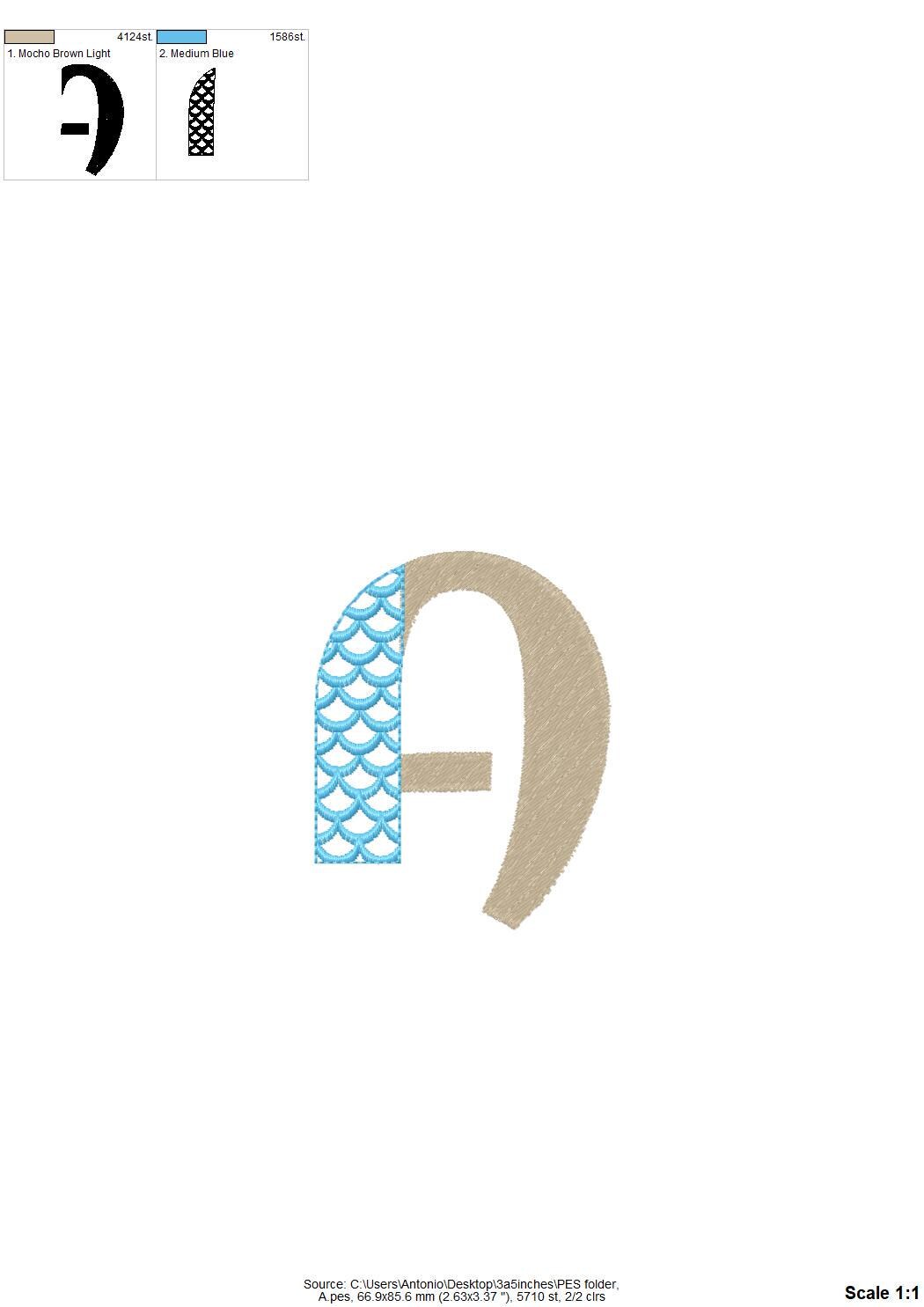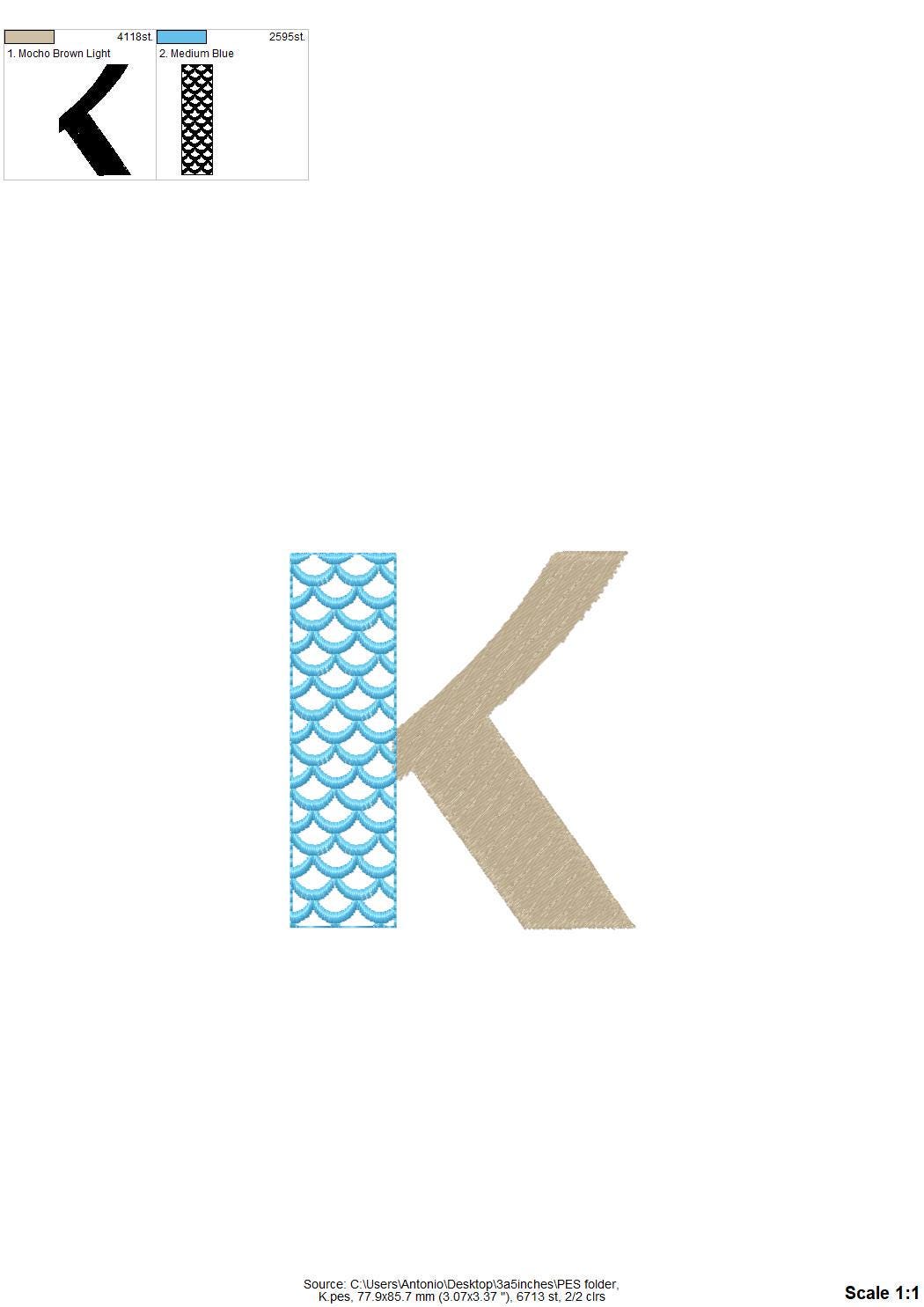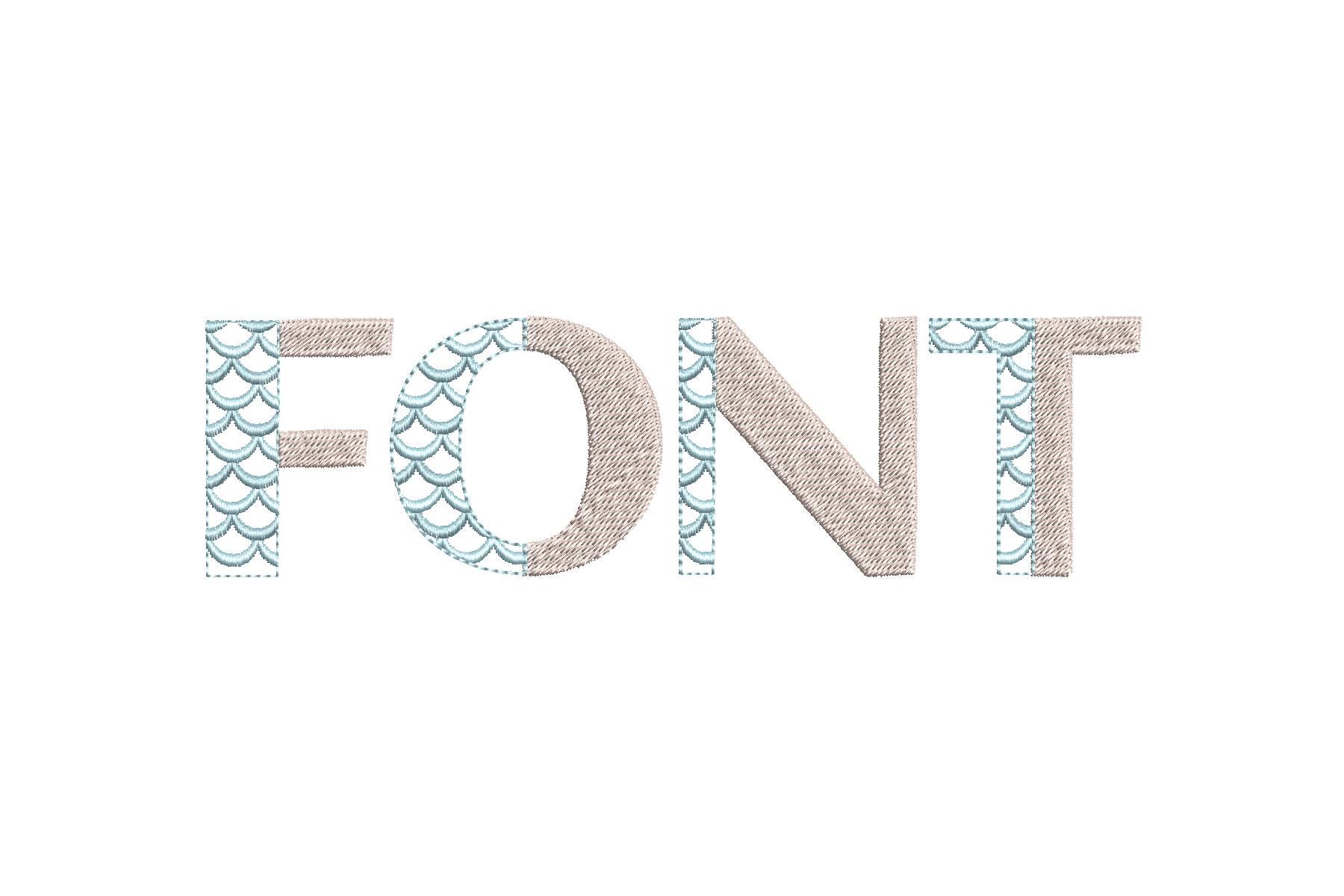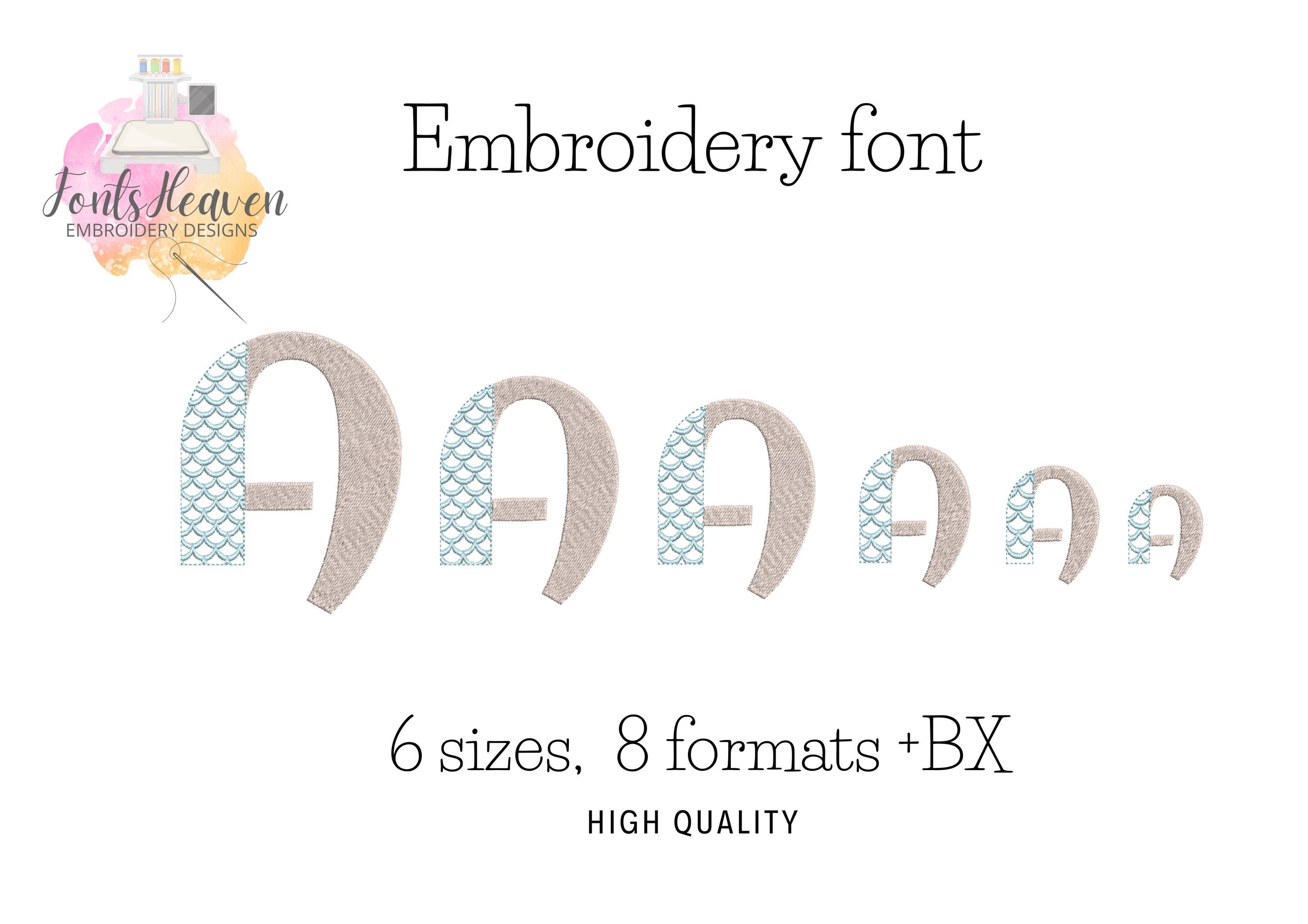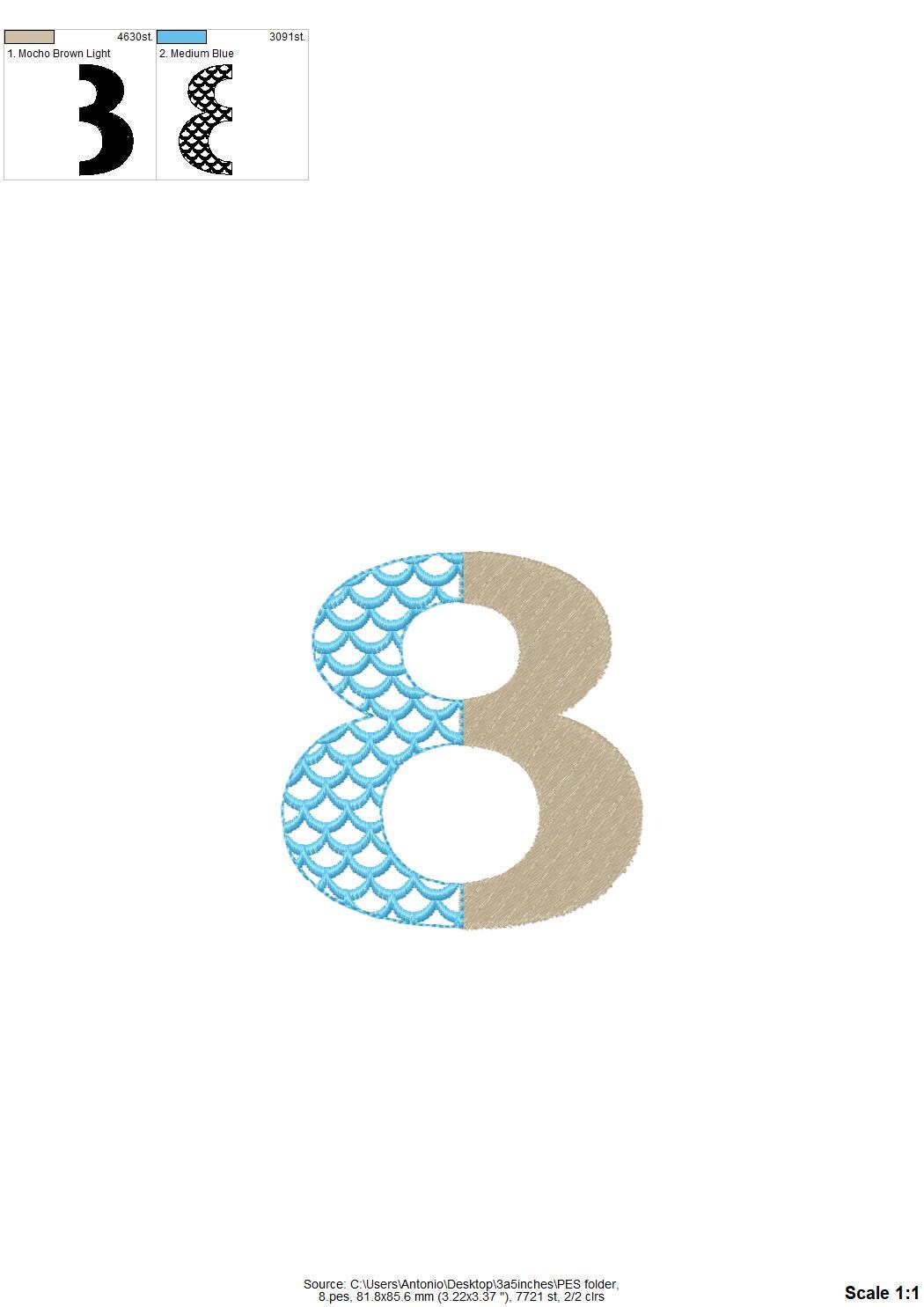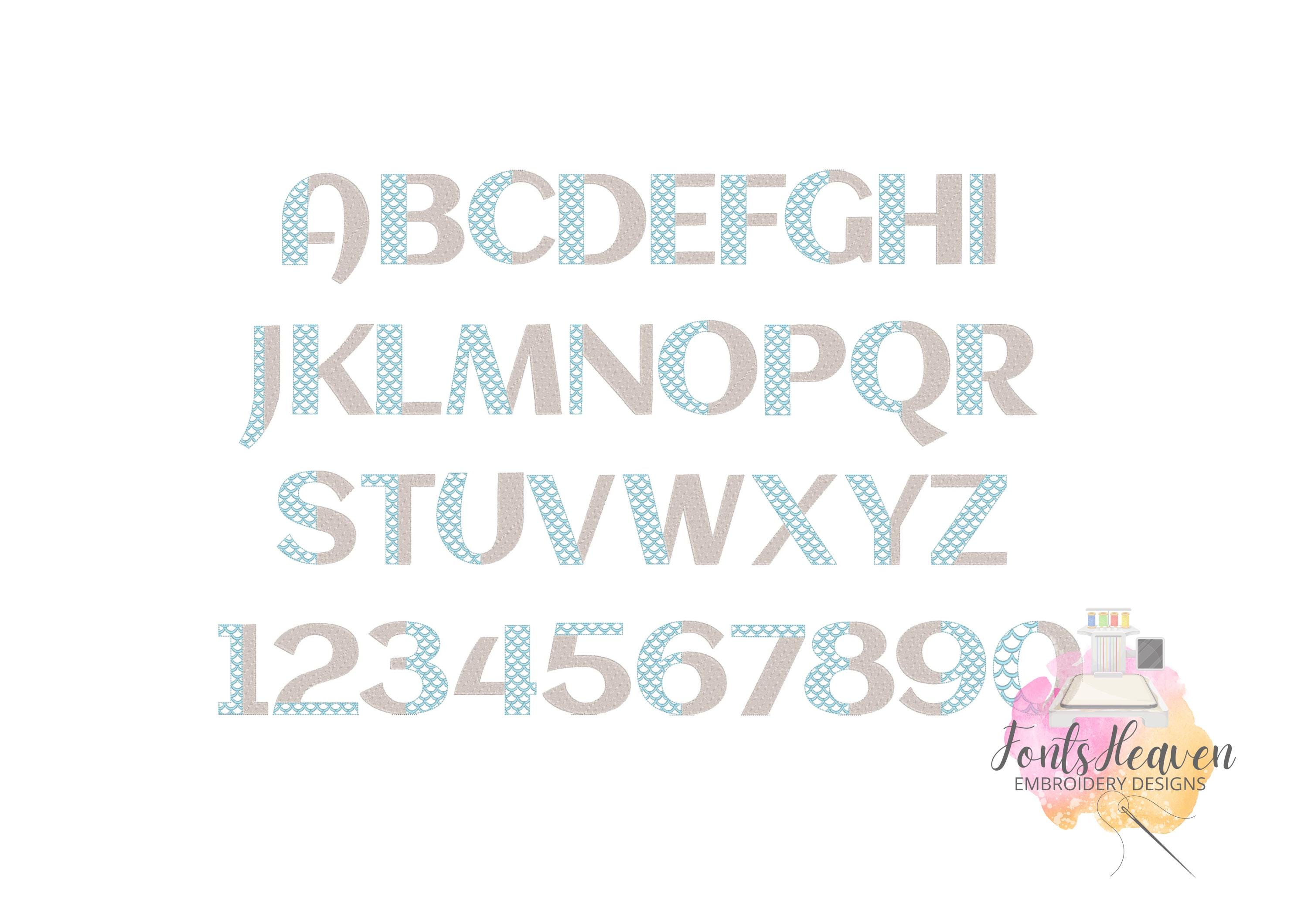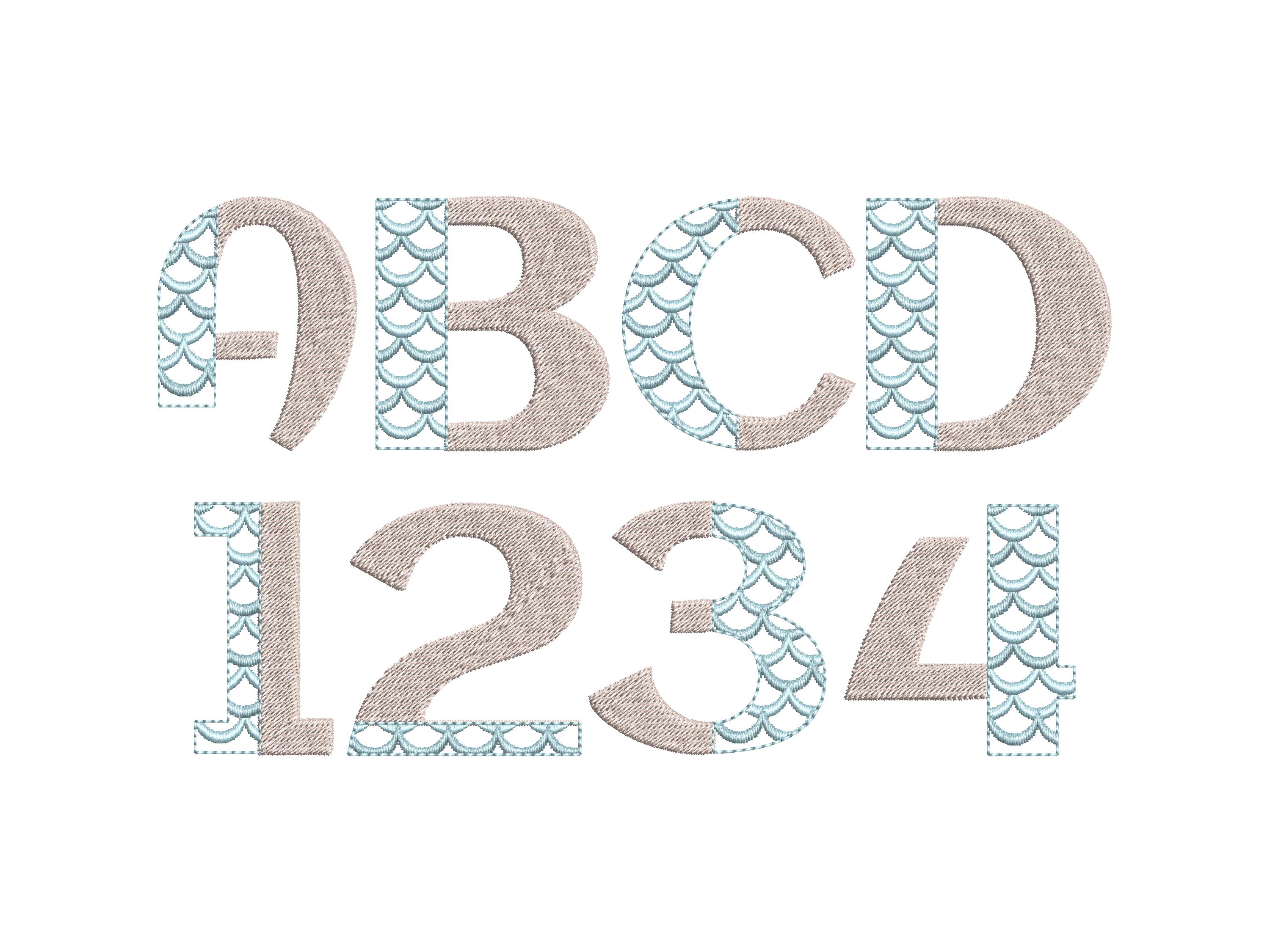
Mermaid FONT Duotone Scalloped alphabet monogram fill stitch and scallop letters numbers machine embroidery designs 1.5 up to 5 inch, and BX included
Entire alphabet uppercase letters A-Z, and numbers 0-9.
The mermaid scallop is transparent and the background fabric looks through. Awesome effect!